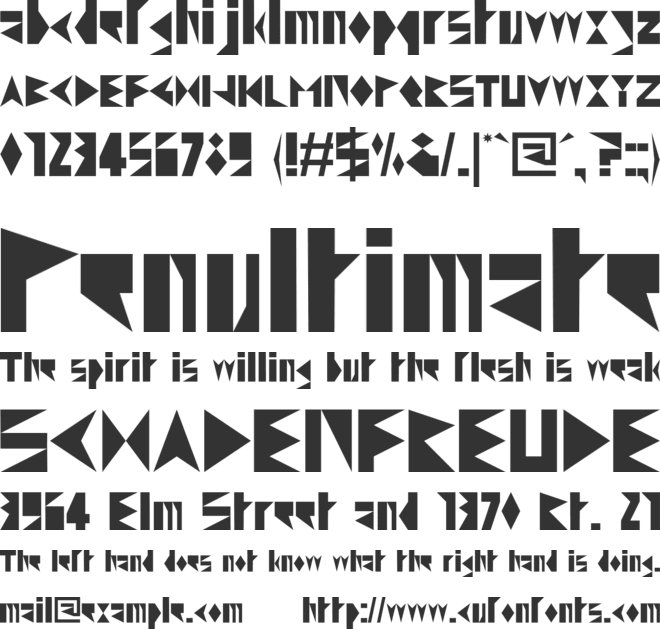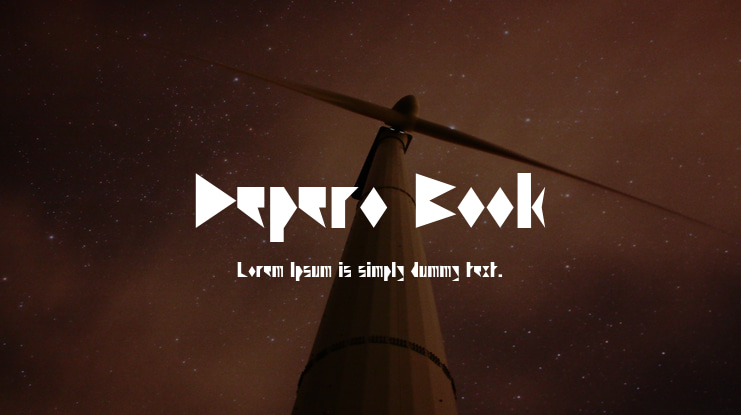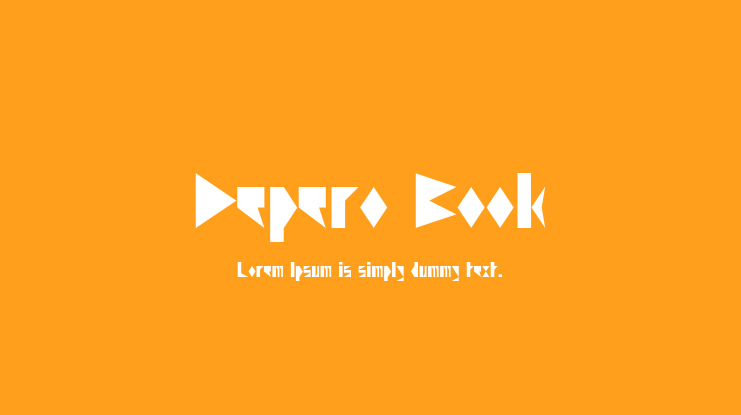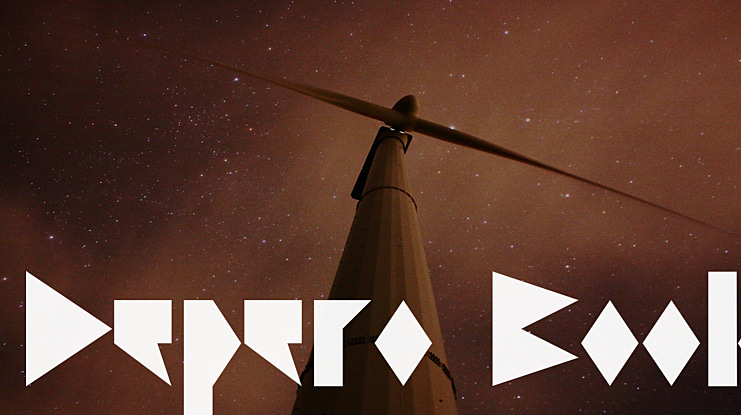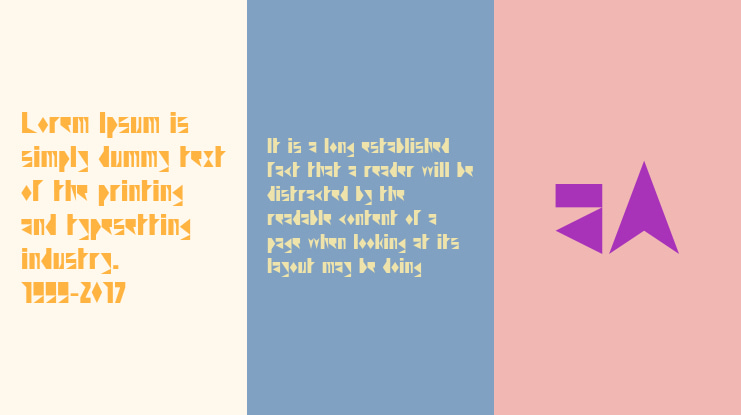
Depero Book Font Family
P.A.Vannucci
From one of the protagonists of Italian divisionism, the futurist art of Fortunato Depero in a precious font, available in 2 True Type formats (Book and Italic).
Da uno dei protagonisti del divisionismo italiano, l’arte futurista di Fortunato Depero in un font pregiato, disponibile in 2 formati True Type (Book e Italic).